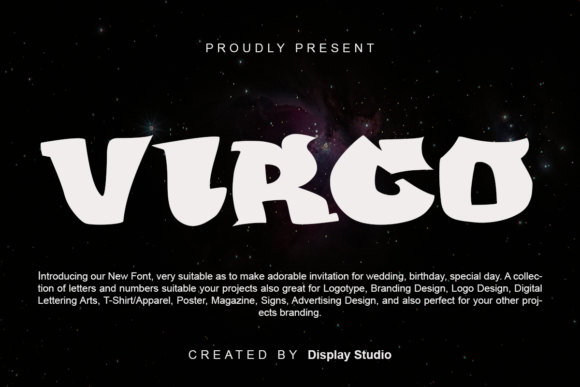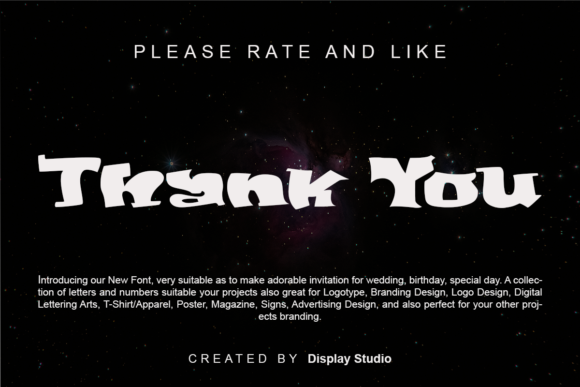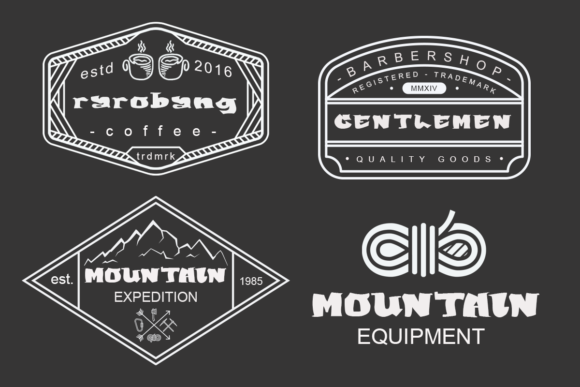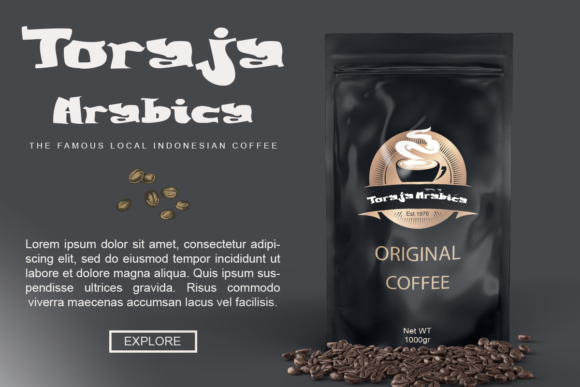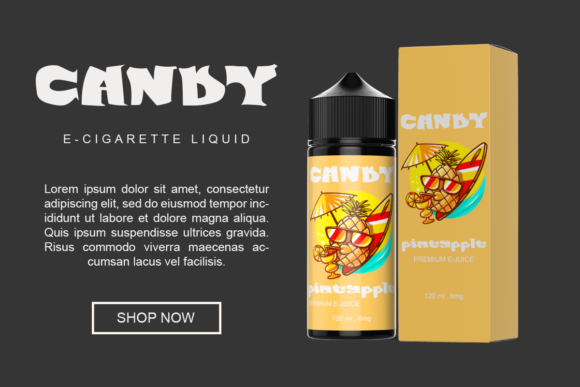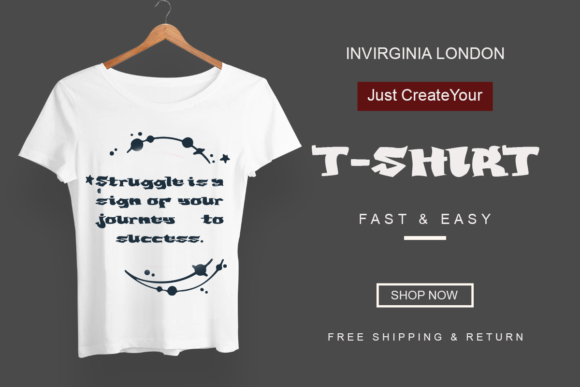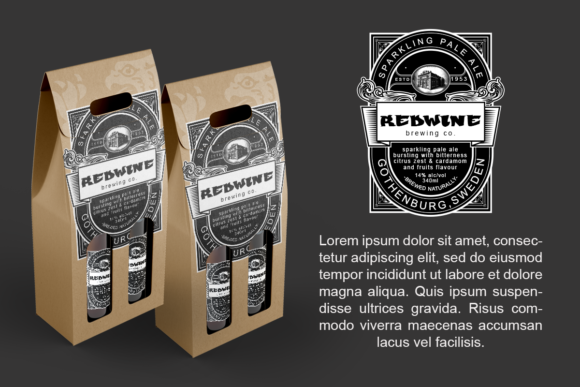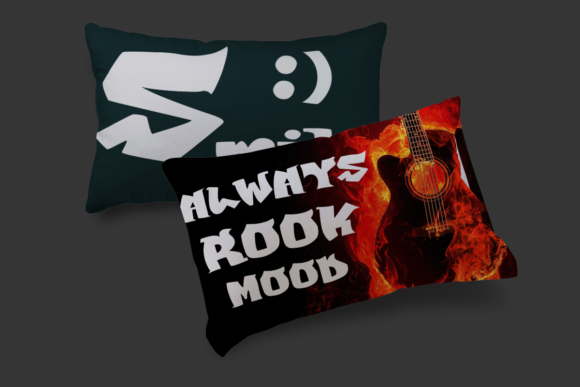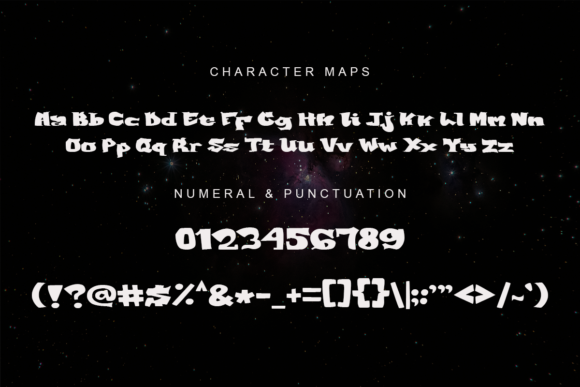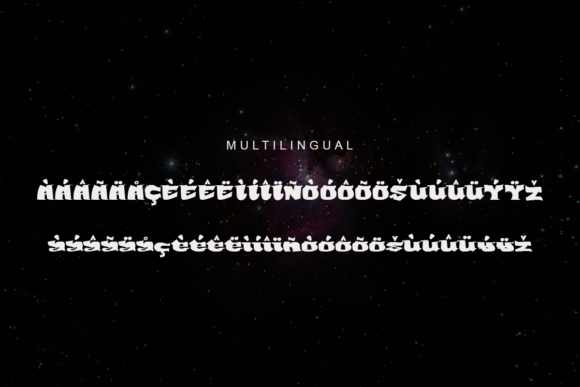
Virgo
Virgo: A Cool and Modern Slab Serif Font
Virgo is a distinctive slab serif font that combines coolness with modern design elements. This versatile typeface is designed to enhance a wide range of creative projects, making it a valuable addition to any designer’s toolkit.
Key Features of Virgo
• Cool Aesthetic: Offers a trendy and appealing look that resonates with current design trends.
• Modern Design: Features contemporary letterforms suitable for various applications.
• Slab Serif Structure: Incorporates the characteristic thick, rectangular serifs typical of slab serif fonts.
• Multilingual Support: Includes characters for multiple languages, expanding its usability.
• Style Variations: Offers different style options to suit various design needs.
• Versatile Application: Suitable for a wide range of projects, from brand logos to greeting cards.
Ideal Uses for Virgo
Virgo’s unique characteristics make it particularly well-suited for:
• Brand logos and identity design
• Invitations for various events
• Greeting cards with a modern touch
• Website headers and digital content
• Poster and advertisement layouts
• Social media graphics and content
When incorporating Virgo into your designs, consider these tips:
• Use for headlines or short blocks of text to showcase its cool and modern style
• Experiment with different style variations to find the perfect look for your project
• Take advantage of its multilingual features for international designs
• Utilize its versatility across various creative projects
Virgo is an excellent choice for designers looking to add a cool and modern slab serif font to their typographic toolkit. Its ability to enhance various creative projects with its unique aesthetic makes it stand out in the world of typography. Whether you’re working on logo designs for contemporary brands, creating layouts for invitations, or developing content that requires a touch of coolness and modernity, Virgo offers the perfect blend of style and versatility.
Furthermore, Virgo’s multilingual support and style variations allow it to shine in various contexts. From vintage-inspired designs with a modern twist to more playful layouts that need a touch of sophistication, this font can elevate your projects. Its cool yet modern style works particularly well in designs that require a thoughtful and refined mood.
In conclusion, Virgo is a font that bridges the gap between cool aesthetics and modern design needs. Its ability to work well in both contemporary, minimalist projects and more elaborate layouts showcases its flexibility. For those looking to add a touch of cool modernity to their work, Virgo can even enhance themed creations with its unique style, further improving the overall aesthetic aspect of your designs.